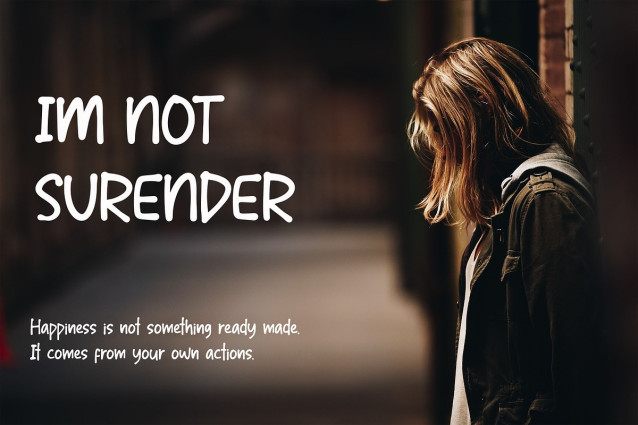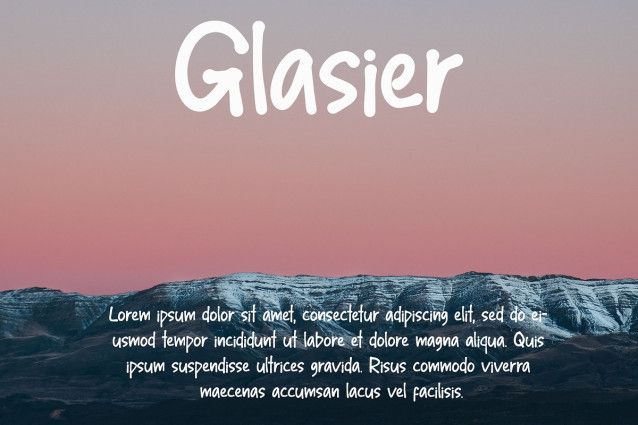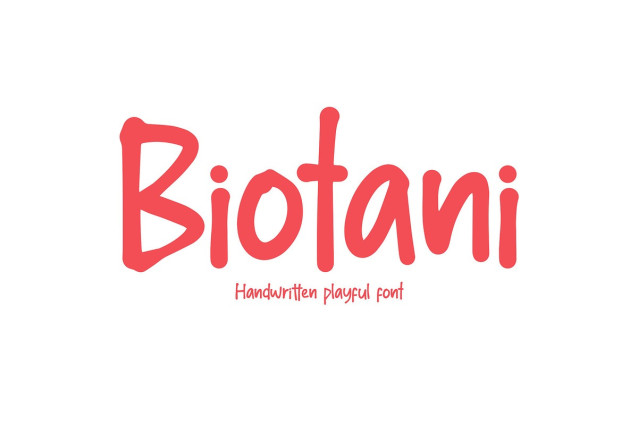
Biotani Font
Biotani Font is a playful handwriting font designed with unique character shapes that add a fun and creative touch to any design project. Perfect for enhancing the visual appeal of logos, product packaging, invitations, and more, Biotani brings an energetic and lively vibe to your graphics.